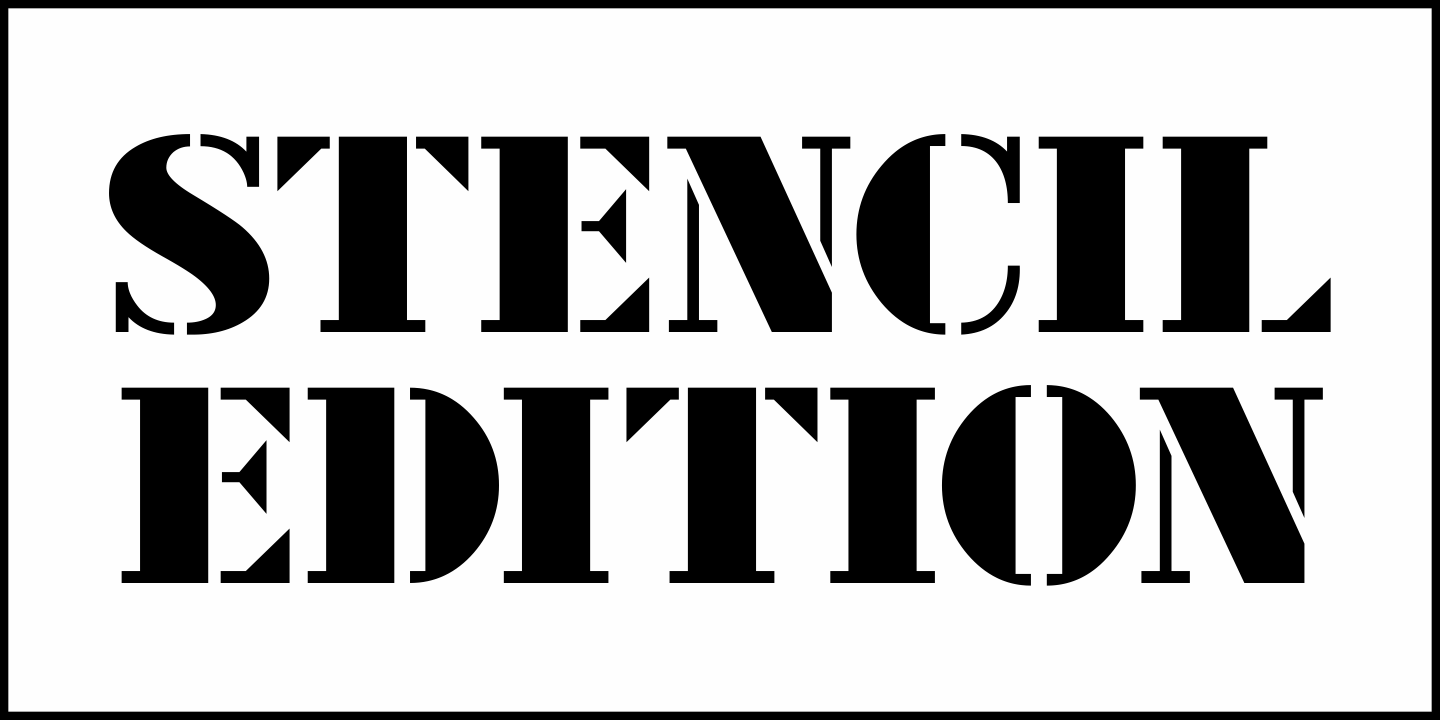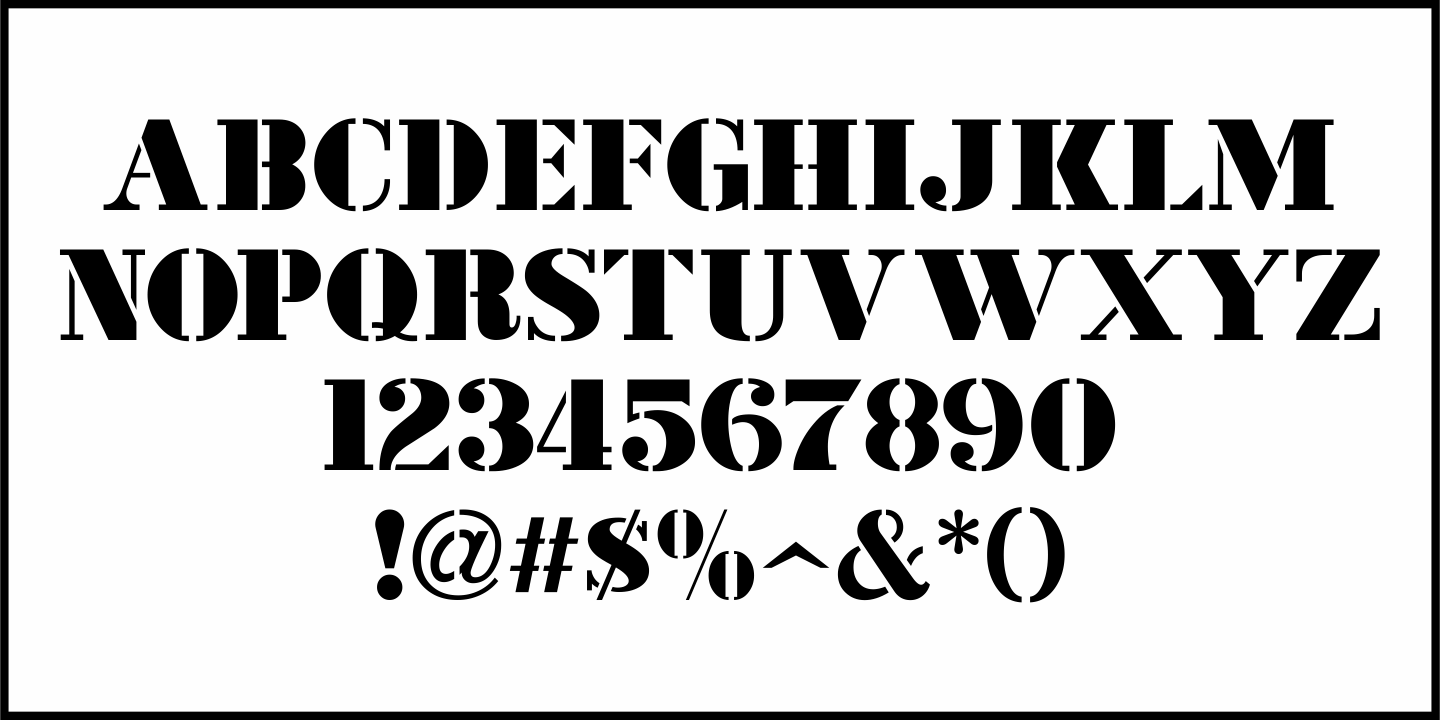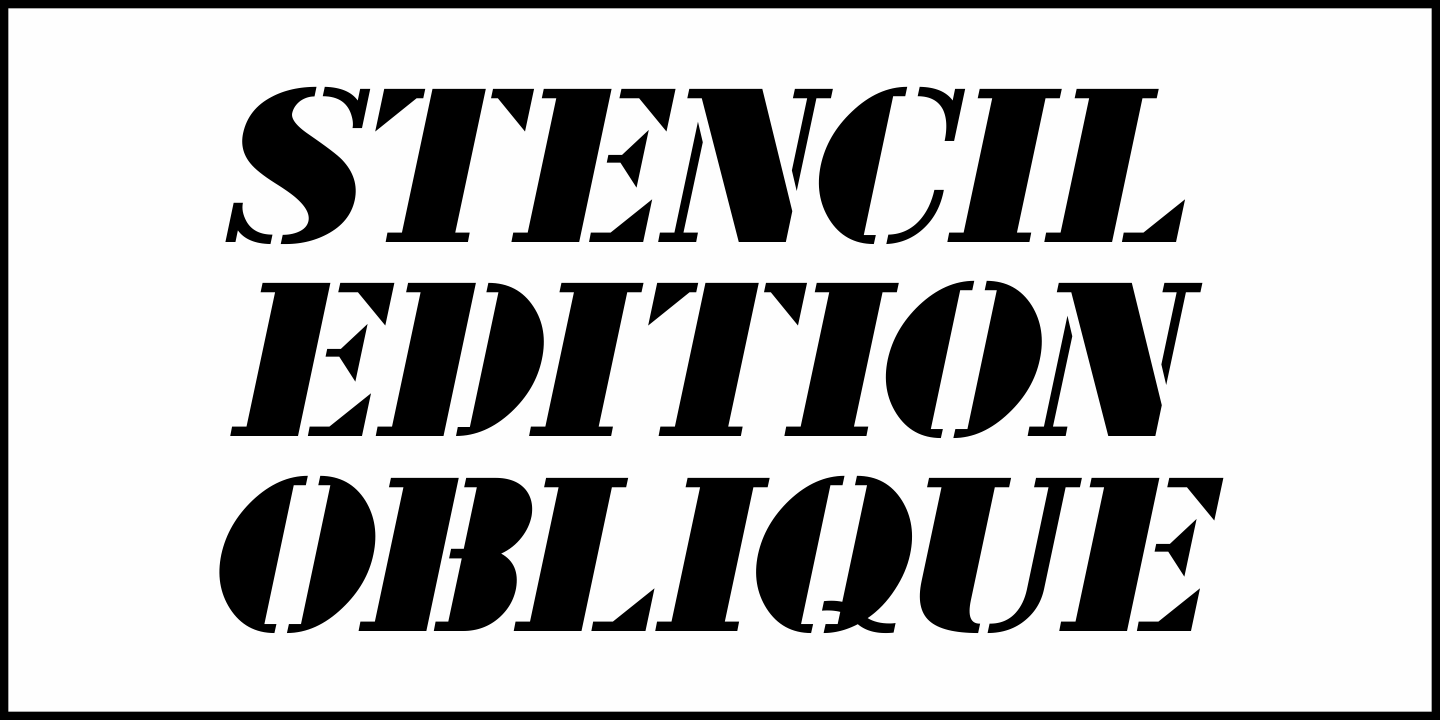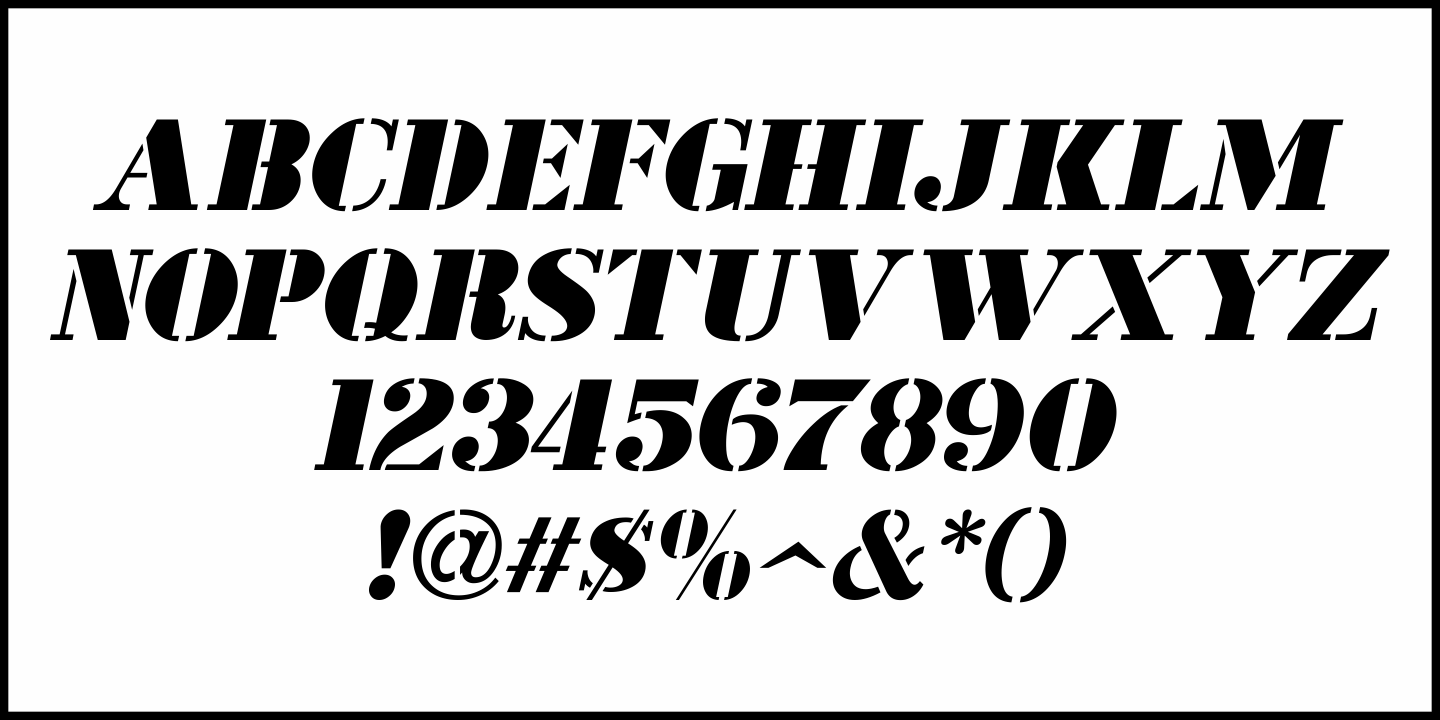
Stencil Edition
The cover title for a 1950s British glamour magazine called “Beauty Parade” was the inspiration and model for Stencil Edition JNL, which is available in both regular and oblique versions.
Stencil Edition JNL Regular by Jeff Levine Fonts